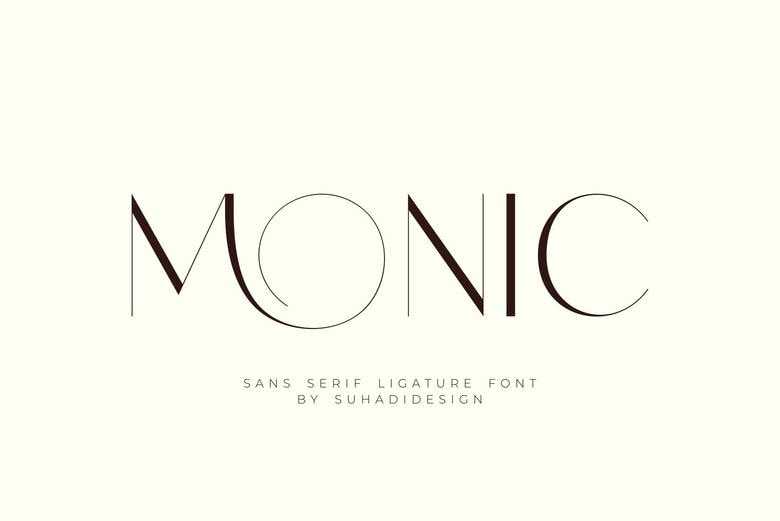
Monic Font
Monic is a sleeked-up sans serif ligature typeface with a minimalist and sleek sophisticated feel. Being developed with infinite creativity, precision, and great artistic care, Monic contains high-contrast strokes, smooth lines, and a characterfully stylized usage of ligatures to change ordinary typography into a piece of art.
The seal of some of these characters would craft richly harmonious and smooth body shapes ideal in a sophisticated branding. Minimalist Design-the design was simple with thick lines and thin contrasting lines to bring out a high fashion delicate look.
Monic Sans Serif Font